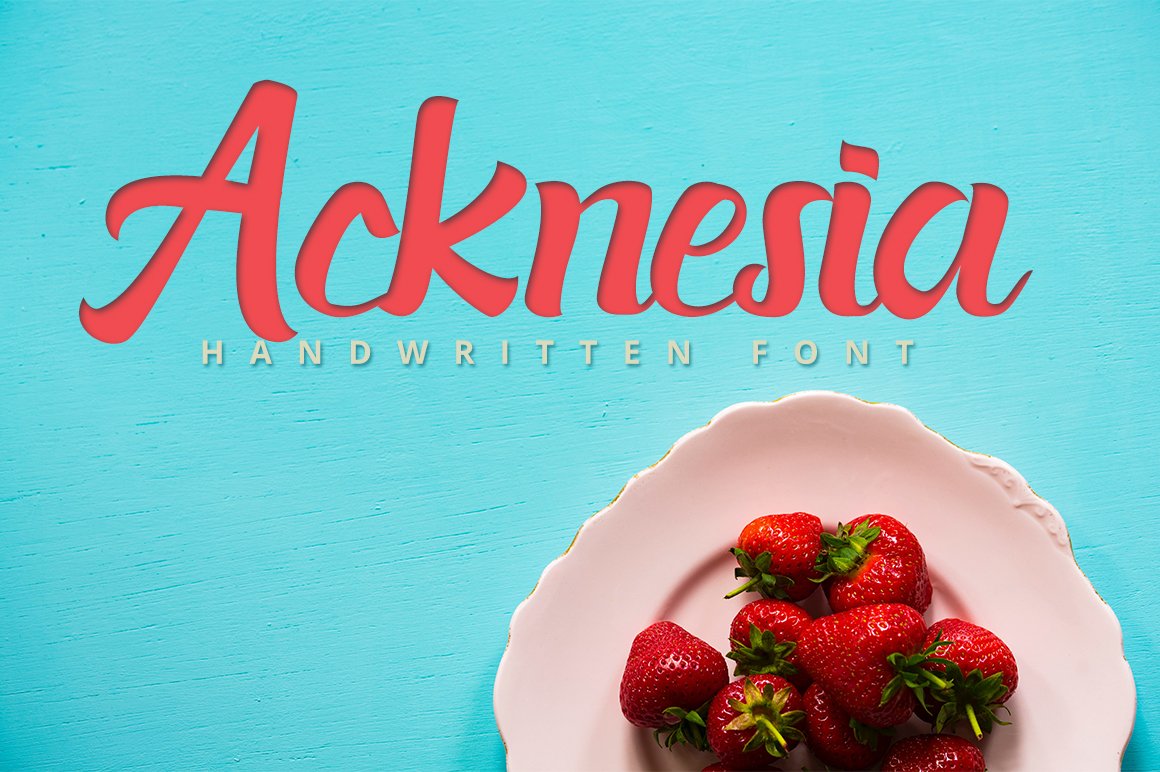
The Perfect Script for Your Creative Vision
Have you ever found yourself staring at a blank page, waiting for inspiration to strike? It’s that moment of clarity, when the perfect idea finally surfaces, that drives us to create something truly remarkable. For designers, this moment is all about finding the right tools to bring their vision to life. Enter the Acknesia Font, a hand lettered script font that embodies the essence of drama and movement.
This beautiful font is designed to make a statement, whether you’re crafting a logotype, headlines, or displays. Its clear style and fluid motion will transport your audience to a world of elegance and sophistication. What makes Acknesia Font truly valuable is its versatility – it adapts seamlessly to any design project, allowing you to unleash your creativity without compromise.
- Unique Characteristics: The font features a unique blend of modern and vintage elements, with intricate details and ornate flourishes that give it a distinctive and elegant look.
Acknesia Font Review
Overall, I was really excited to try out the Acknesia Font, but unfortunately, it didn’t quite live up to my expectations.
- The font is highly customizable, with a wide range of weights and styles to choose from.
- The Acknesia Font is well-suited for digital use, with a clear and readable design that works well on screens.
- The font is also highly versatile, and can be used for a wide range of applications, from body text to headlines.
- The font feels a bit over-processed, with some of the characters looking slightly distorted or unnatural.
- The Acknesia Font is not particularly well-suited for print use, with some of the characters looking blurry or fuzzy when printed.
- The font’s OpenType features are not as comprehensive as I would have liked, with some of the advanced features feeling a bit lacking.
Overall, I would give the Acknesia Font 3 out of 5 stars. While it has some great features and is well-suited for digital use, it falls short in some key areas. With a bit more attention to detail and refinement, I think the Acknesia Font could be a real winner.
Tips for Getting the Most Out of Acknesia Font
Use Acknesia Font for titles, headings, and emphasis in your designs. Combine it with other fonts to create a unique and visually appealing typography. Experiment with different font sizes and styles to create contrast and hierarchy in your design.
Acknesia Font is suitable for creative projects, such as graphic design, branding, and digital art. It’s also great for creating visually appealing text overlays for videos, social media posts, and presentations.